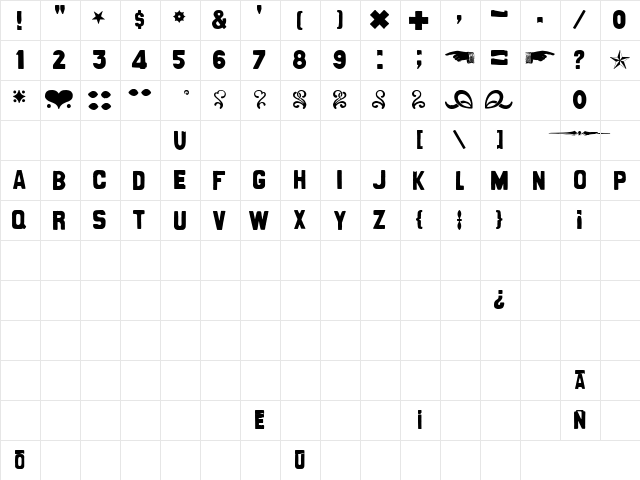
CanCan de Bois Regular
Design Context for CanCan de Bois Typeface
CanCan de Bois offers clean, dependable letterforms without strong stylistic allegiance, making it a practical choice for designers who need flexibility.
Pro Tip: Use CanCan de Bois in both headline and body roles to test its range before committing to a single application.